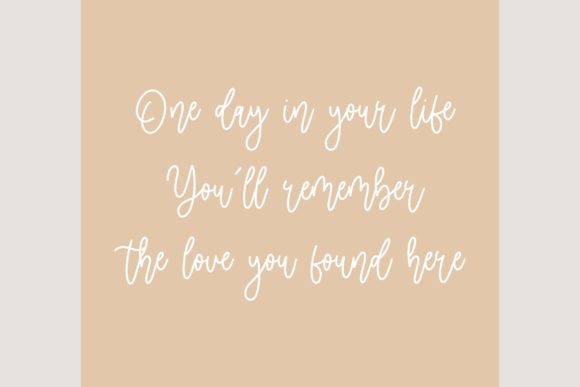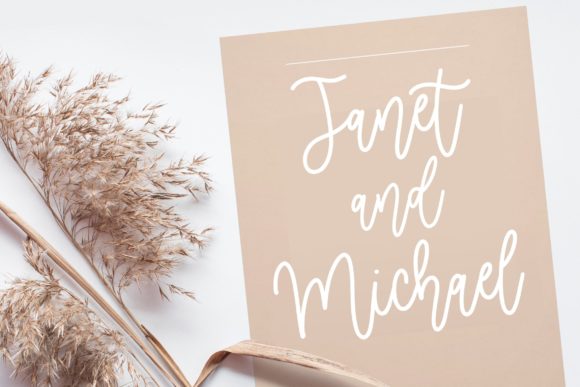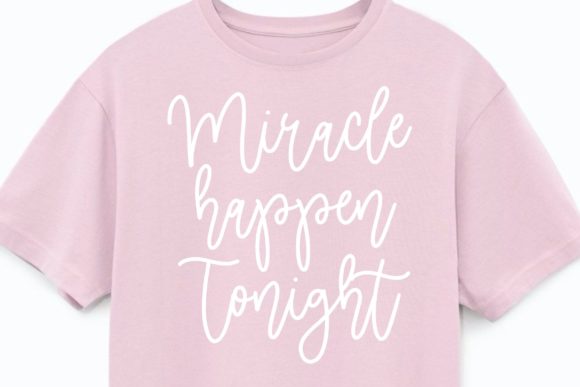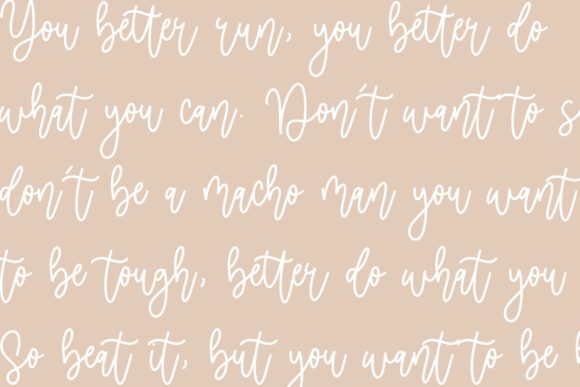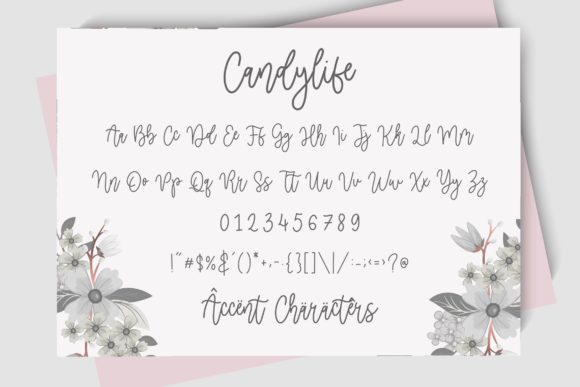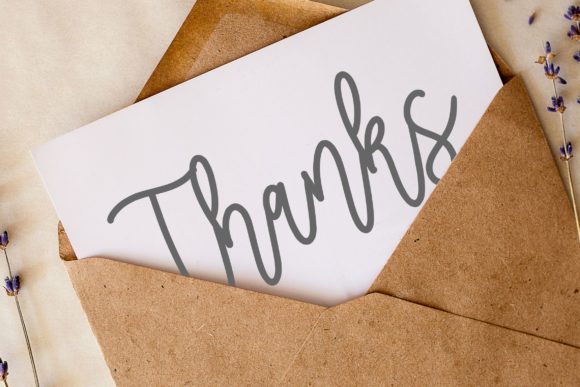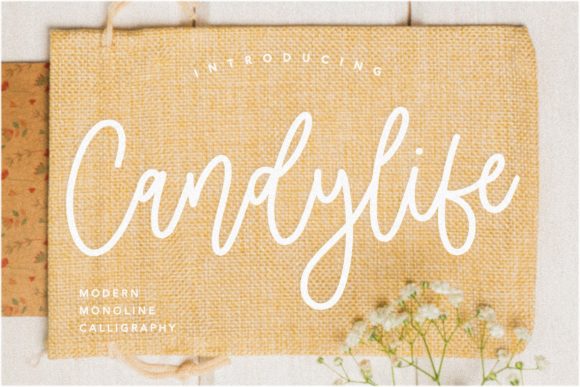
The Sweetest Font You’ll Fall in Love With: Candylife
Have you ever been in the middle of a design project, and suddenly, you’re stuck on finding the perfect font? I recall a particularly frustrating experience when a client’s request for a “sweet and playful” vibe had me scouring the internet for hours. That’s when I stumbled upon Candylife, a beautiful handwritten font that instantly captured my heart. In this article, I’ll share my love for Candylife, its features, and how to make the most of it in your creative projects.
My Love Affair with Candylife
Candylife is a sweet and flowing handwritten font that has become a staple in my design toolkit. Its outstanding style has won my heart, and I’m excited to share its charm with you. Here are a few things I love about Candylife:
• ✨ Sweet and playful vibe: Candylife exudes a sense of fun and playfulness, making it perfect for projects that require a touch of whimsy.
• ✅ Elegant flow: The font’s flowing script style gives it an elegant feel, suitable for a wide range of design applications.
• 💫 Versatile: Candylife can be used for various projects, from branding and packaging to invitations and social media graphics.
Honest Review: The Not-Perfect-but-Almost-Perfect Font
While Candylife has stolen my heart, it’s not without its quirks. Here are a few things to keep in mind:
• 🤔 Limited use in body text: Due to its script nature, Candylife might not be the best choice for lengthy body text. It’s better suited for headings, titles, or short paragraphs.
• ⚠️ Some letters may appear similar: A few letters, like “I” and “l”, or “b” and “d”, might appear similar, which can lead to confusion in certain contexts.
3. Experiment with OpenType features like ligatures and stylistic alternates to add more flair to your text.
The Designer Inspiration Behind Candylife
Candylife was designed with the intention of capturing the sweetness and playfulness of childhood. Its creator aimed to craft a font that would evoke feelings of joy and happiness, making it perfect for a wide range of creative projects.
Font Name Candylife Font
Author Balpirick
Q: What type of projects is Candylife best suited for?
Candylife is versatile and can be used for various projects, including branding, packaging, invitations, social media graphics, and more.
Q: Is Candylife a difficult font to read?
Candylife is a script font, and while it’s beautiful, it may not be the most readable font for lengthy body text. It’s best used for headings, titles, or short paragraphs.